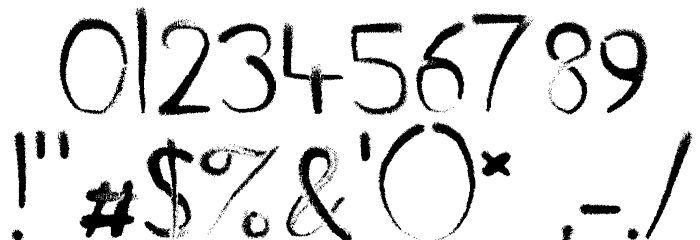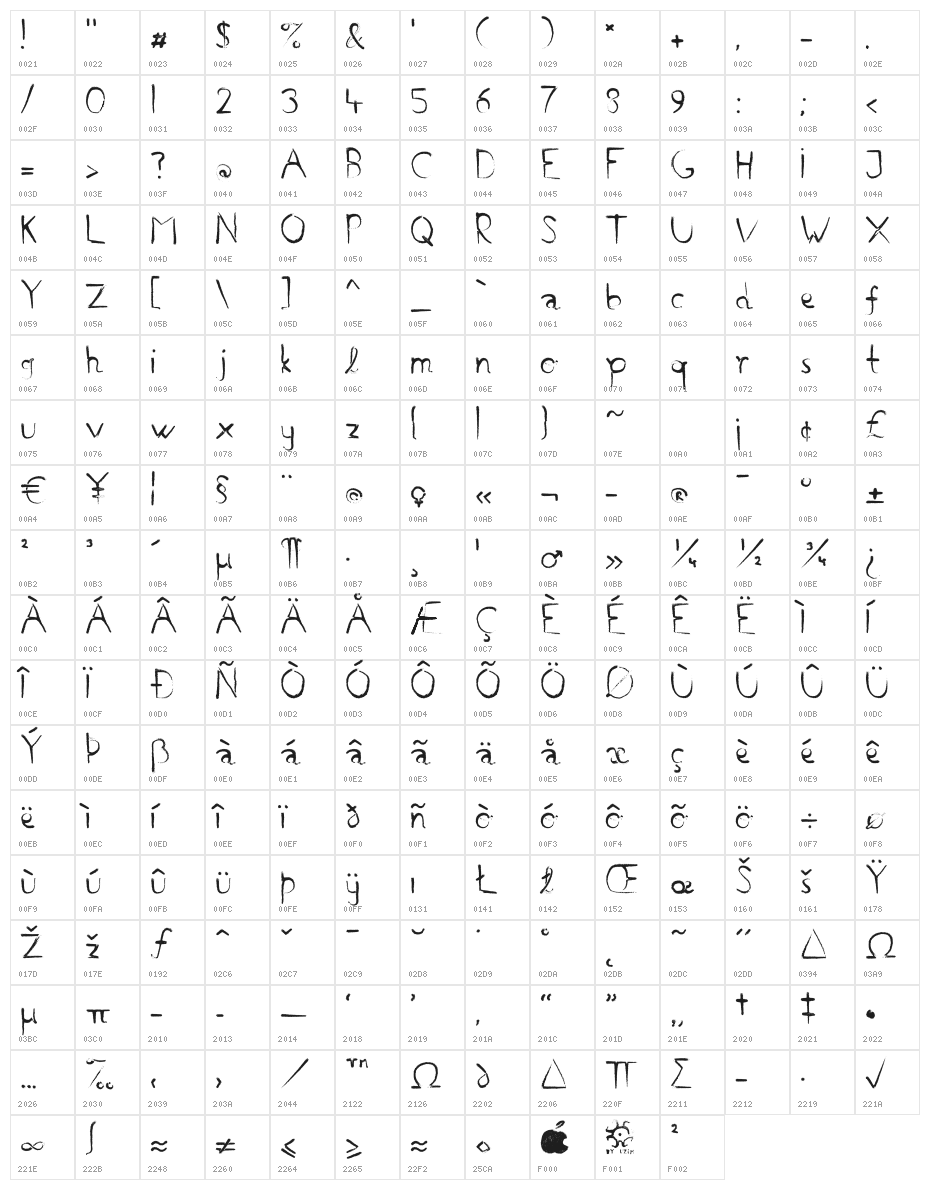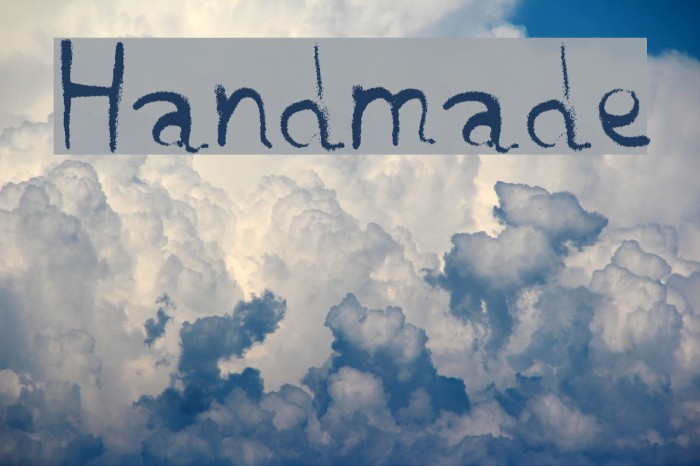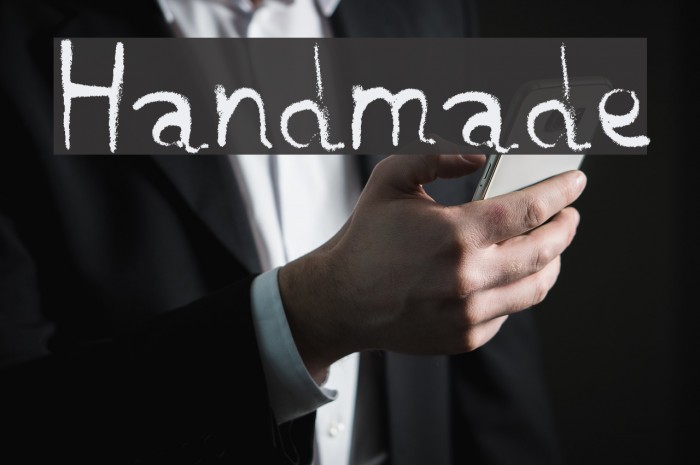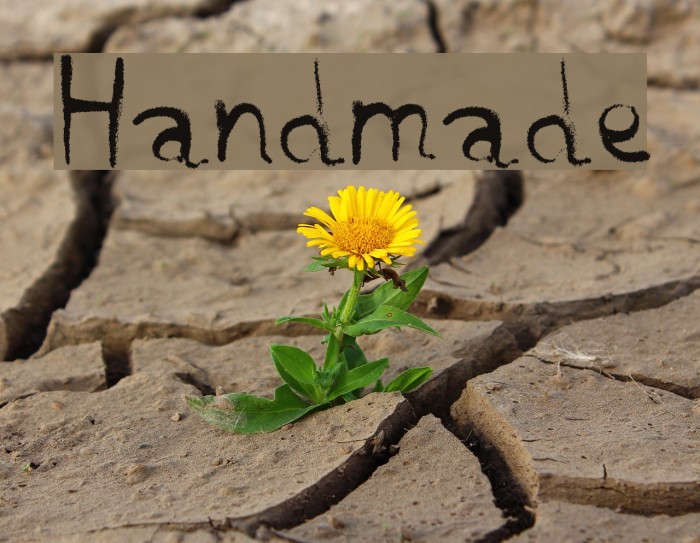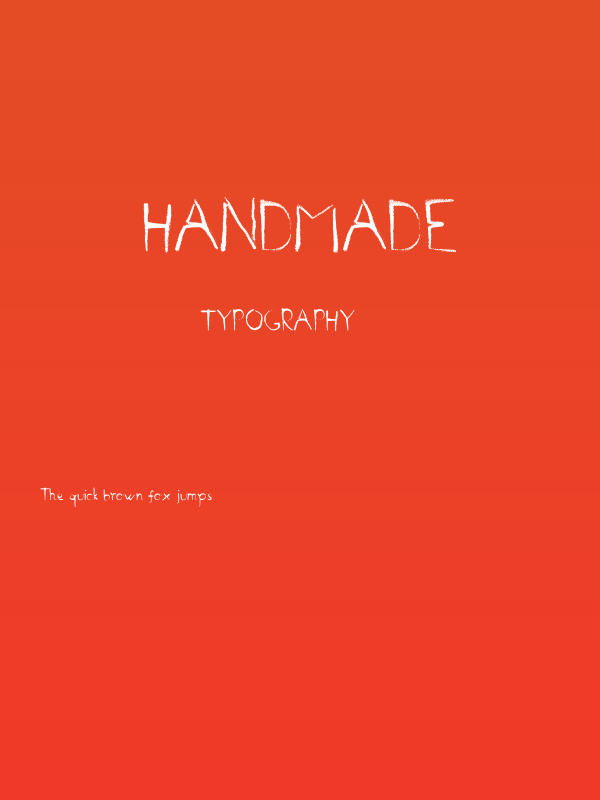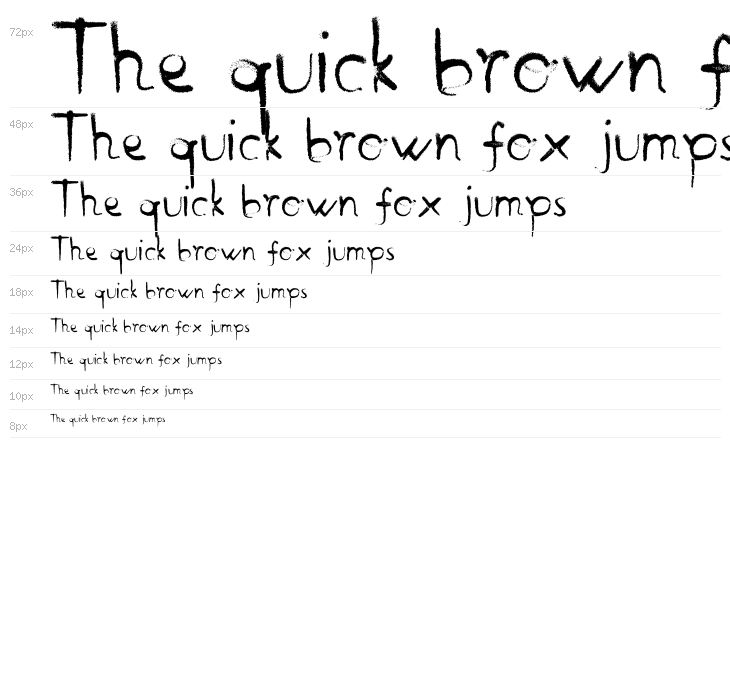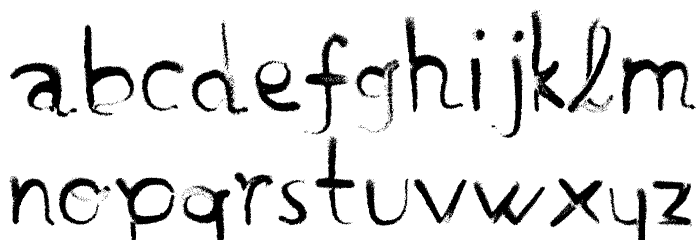
Handmade Font
Handmade Description
This font exudes a handcrafted, artistic vibe with its uneven strokes and organic flow. Each character appears as if it has been drawn with a brush or marker, giving it a personal and authentic touch. The uppercase letters are bold and slightly irregular, while the lowercase letters maintain a playful and whimsical style. Numbers and special characters follow the same handmade aesthetic, adding to the font's cohesive look. The overall design is casual and approachable, making it suitable for projects that require a personal or creative touch.
Overall StyleArtistic, Casual
Use CaseHeadlines, Creative projects, Branding
Proposed ProjectsIdeal for creative projects such as greeting cards, invitations, posters, and branding materials that require a personal touch.